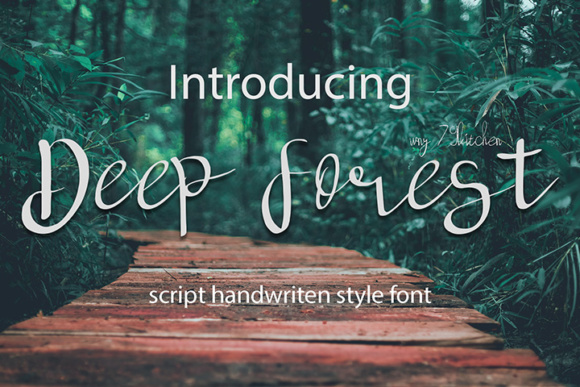
Introducing Deep Forest Font, a captivating handwritten font that will elevate your designs to new heights!
Immerse yourself in the serene beauty of this script font, inspired by the tranquil depths of the forest. Each letter flows seamlessly with an effortless grace, evoking a sense of calmness and tranquility. Deep Forest is the perfect choice for adding a touch of elegance and sophistication to your next project.
Unleash your creativity and let Deep Forest ignite your imagination. Whether you're crafting heartfelt signatures, captivating logos, or stunning social media posts, this font will add a unique touch that captivates your audience. Its versatility knows no bounds, making it ideal for a myriad of projects.
Step into the world of Deep Forest and feel the inspiration flowing through your veins. Its enchanting characters will add a touch of magic to your designs, leaving an unforgettable impression on all who behold them. Embrace the serenity of nature and elevate your creations to extraordinary heights with Deep Forest Font.